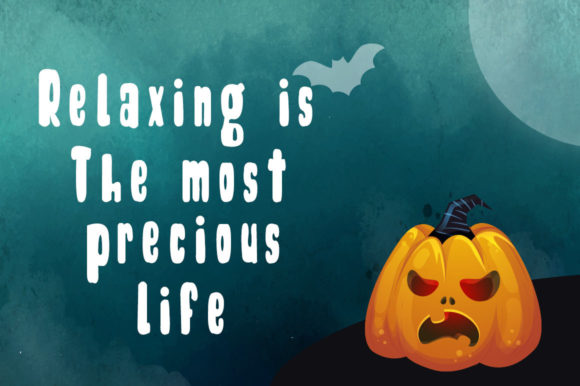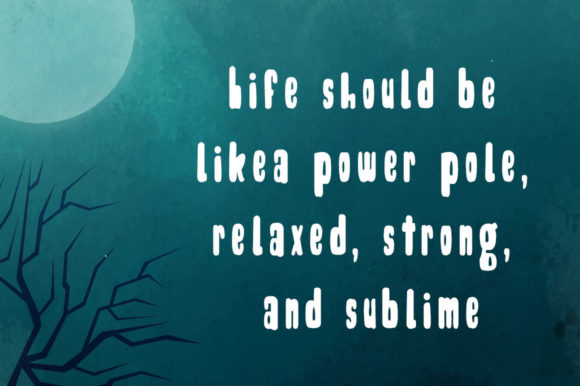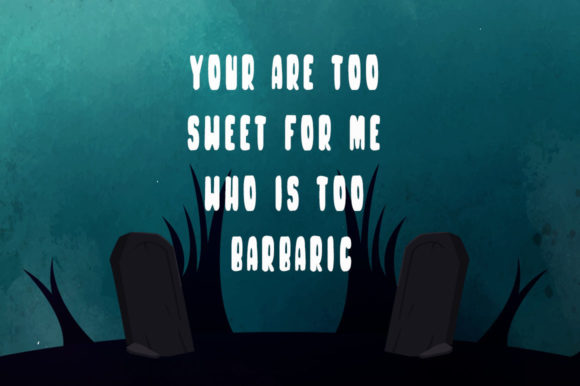
Introduction to Night Spooky Font
Have you ever found yourself in the middle of a creative project, staring at a blank canvas or screen, trying to come up with the perfect design element to tie everything together? It’s a frustrating yet familiar feeling for many designers and artists. But what if you had access to a versatile and eye-catching font that could elevate your work and make it truly stand out?
Enter Night Spooky Font, a charming and laid-back display font that’s perfect for adding a touch of whimsy to your designs. Whether you’re working on a DIY project, creating social media graphics, or developing a brand identity, Night Spooky Font is a valuable addition to your design resource toolkit. With its transparent background and high-quality design, this font is a must-have for anyone looking to add a unique and creative touch to their work.
Key Features of Night Spooky Font
- Unique Gothic-inspired design with a spooky twist, perfect for creative projects that require a mysterious atmosphere.
- Features a transparent background, allowing for seamless integration into any design, from digital art to print materials.
- High-quality font with detailed, intricate designs, ideal for use in creative projects that require a touch of sophistication and elegance.
- Supports a wide range of languages, making it a versatile design resource for international projects.
Honest Review: Night Spooky Font
I recently stumbled upon the Night Spooky Font, and I must say, it’s been a fascinating addition to my design resource library. As a designer, I appreciate the attention to detail and the level of effort that goes into creating high-quality fonts like this one.
- Unique aesthetic: The Night Spooky Font has a distinct, eerie feel that’s perfect for creative projects requiring a spooky or mysterious atmosphere.
- High-quality design: The font’s design is crisp and clear, even when used on a transparent background.
- Limited character set: The font only includes a limited character set, which may not be suitable for projects requiring extensive text content.
- Lack of versatility: While the font is perfect for spooky projects, it may not be the best choice for more general design applications.
Overall, I’m impressed with the Night Spooky Font, and I would recommend it to designers working on creative projects that require a unique, eerie atmosphere. However, it’s essential to keep in mind its limitations and use it accordingly.